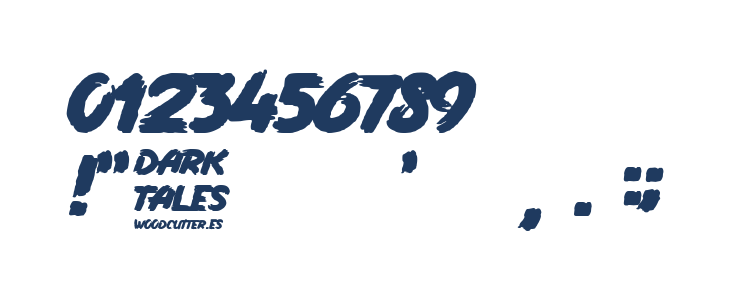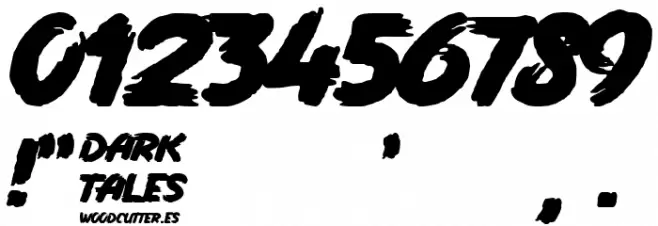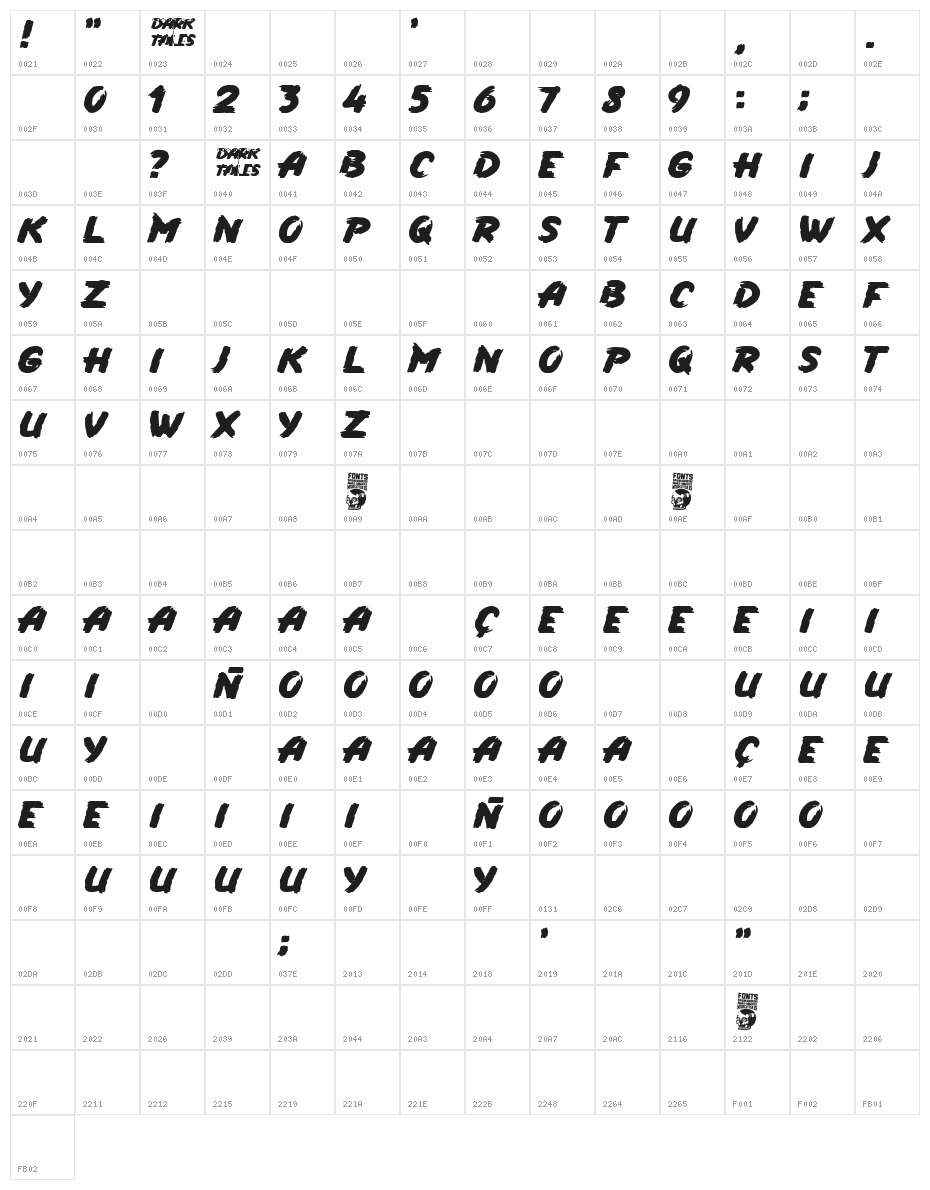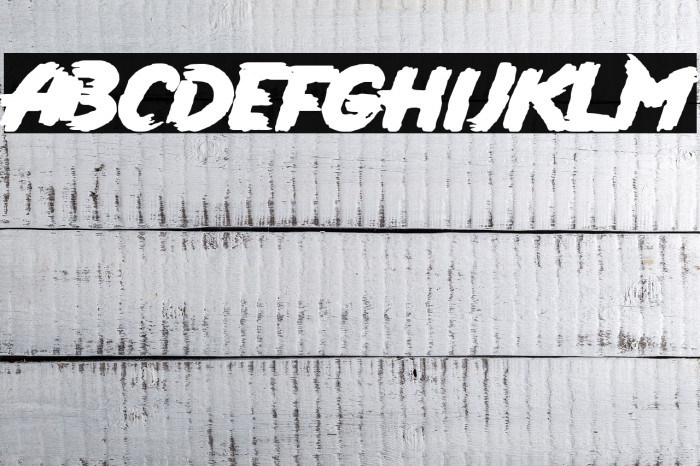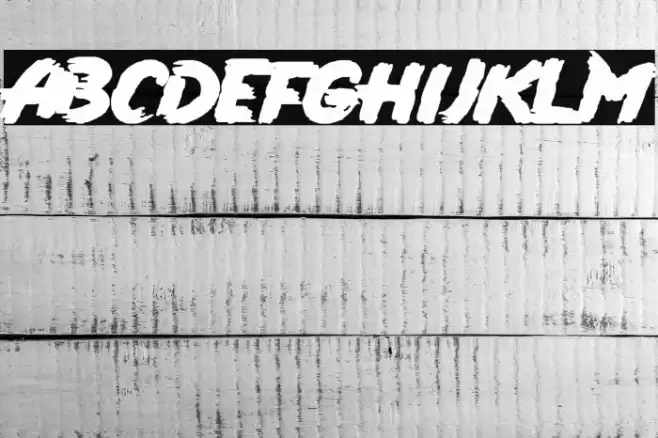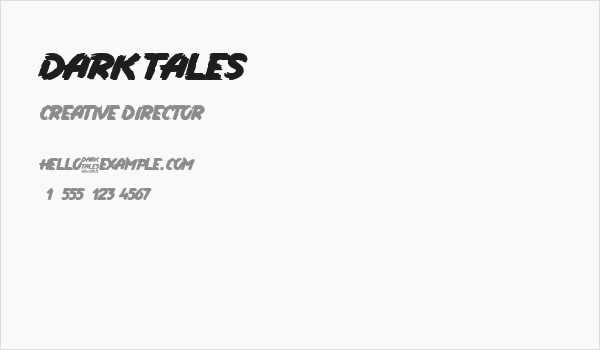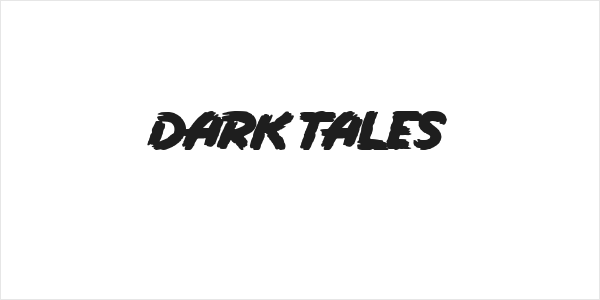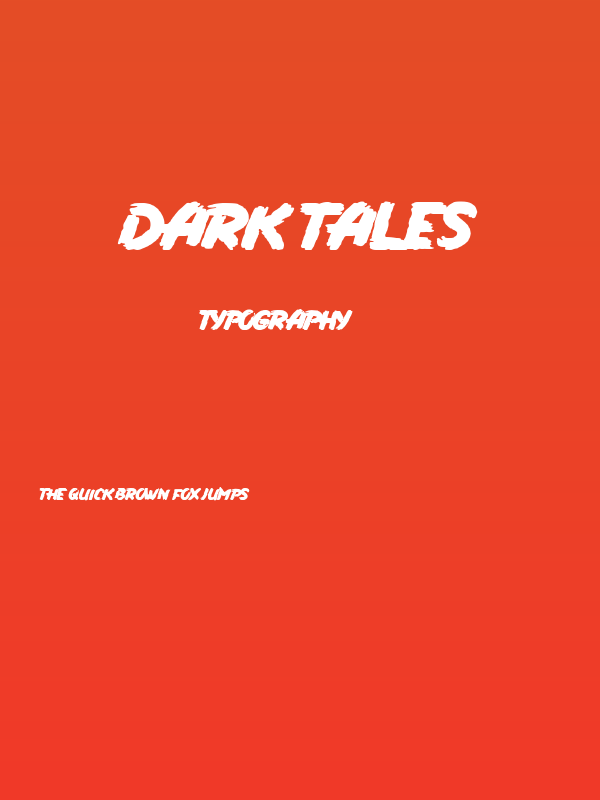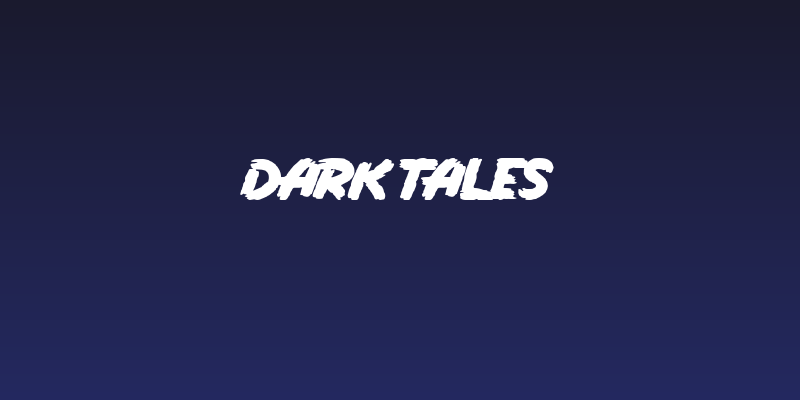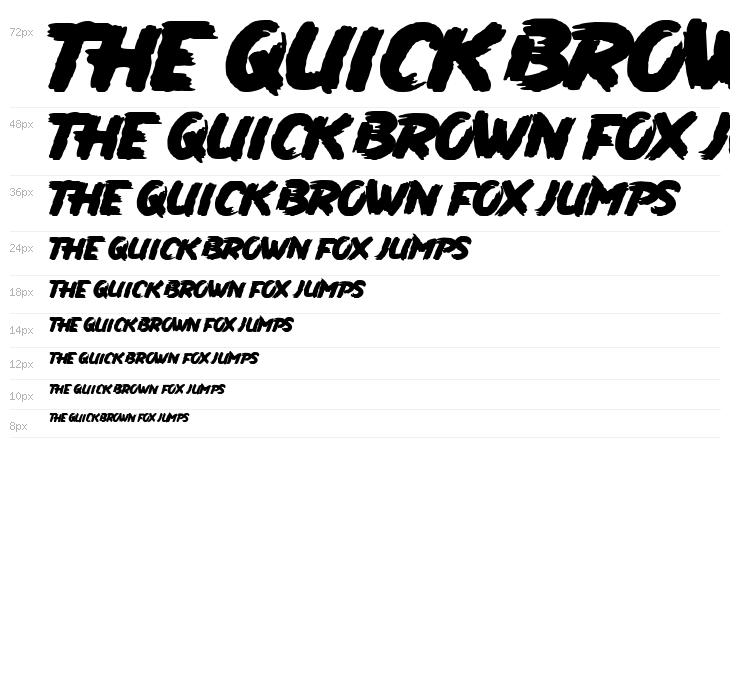
Dark Tales Font
Dark Tales Description
This font features a bold, brush-stroke style with a dynamic and energetic appearance. The characters are heavily stylized, with thick strokes and irregular edges that give it a hand-painted look. The uppercase and lowercase letters maintain a consistent style, with a slightly slanted orientation that adds to its lively character. The numbers and special characters follow the same design, ensuring uniformity across all glyphs. This font is ideal for projects that require a strong visual impact, such as posters, logos, and headlines. Its unique style makes it stand out, adding a touch of creativity and boldness to any design.